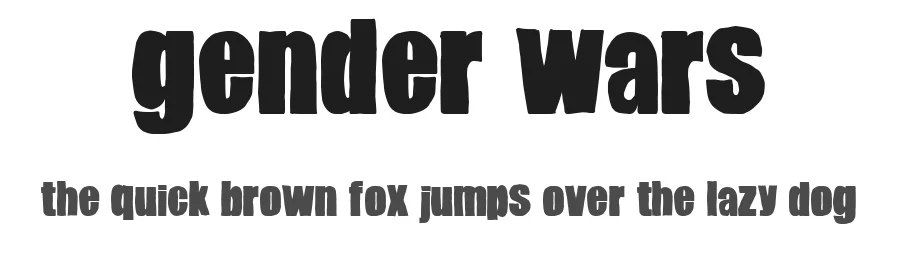
About Night Court Font
Night Court is a flamboyant, dauntless yell-font.
| Font Family | Night Court |
| Designer | Raymond Larabie |
Night Court Font is a decorative font that shines as a display or heading face. Pair it with a clean sans-serif or serif font for body text — the contrast creates a clear hierarchy while the two styles stay balanced and easy to read.